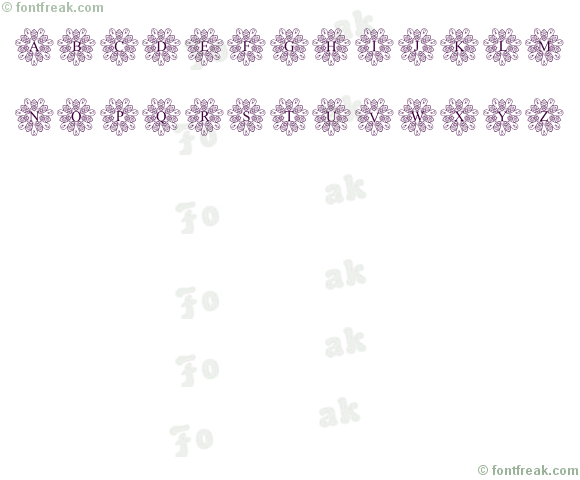
EuropeanMonogram-Regular
About EuropeanMonogram-Regular
EuropeanMonogram-Regular by Aqeela Studio is a decorative typeface that beautifully combines elegance and sophistication. This font features a unique monogram style that is perfect for creating intricate designs. The strokes are delicately balanced, showcasing a fine contrast that enhances its visual appeal. With its ornate details and artistic flair, EuropeanMonogram-Regular stands out as a versatile choice for various projects.
The font exhibits a moderate stroke weight, ensuring clarity while retaining its decorative essence. Its spacing is thoughtfully designed, allowing each character to breathe while maintaining a cohesive look. The design includes intricate curves and embellishments that lend a luxurious touch, making it ideal for high-end branding and formal invitations.
EuropeanMonogram-Regular is particularly suited for wedding invitations, where its elegance can elevate the overall aesthetic. Additionally, it works wonderfully for restaurant menus, giving a sophisticated feel that can attract diners. Fashion magazines and boutique branding can also benefit from its unique character, making it a valuable asset for graphic designers looking to create standout visuals. Small business owners can use this font to add a touch of class to their marketing materials.
What sets EuropeanMonogram-Regular apart is its ability to blend traditional elegance with modern aesthetics. This font not only serves practical design needs but also inspires creativity, making it a must-have for anyone looking to add a touch of sophistication to their work. Its distinctive style ensures that any project using this font will stand out and leave a memorable impression.